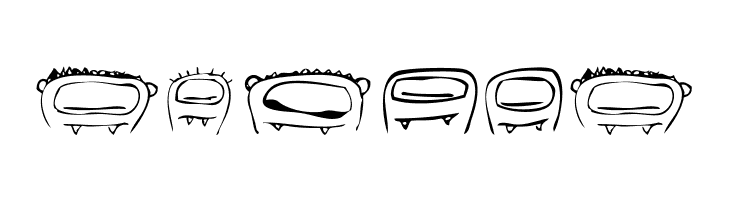
Vera Humana 95 Font
A modern, elegant font with balanced proportions and subtle stroke contrast.
Vera Humana 95 Bold Font
A bold serif font with strong strokes and pronounced serifs.
1543HumaneJenson Normal Font
A classic serif font with a Renaissance-inspired, hand-crafted look.
yorkville Font
Font by humanabase
A modern, geometric sans-serif font with uniform strokes and clear legibility.
1543HumaneJenson Bold Font
A bold, vintage serif font with a textured, historical appearance.
Humans Font
Font by Manfred Klein. Free for private and charity use. Free for commercial with donation to organizations
A display font made from human silhouette illustrations.
Humectez La Mouture Font
Font by junkohanhero
A bold, distressed font with a vintage, textured appearance.
aKa Font
A hand-drawn, artistic font with a playful, sketch-like quality.
Sohoma Light Condensed Font
A light, condensed font with medium contrast and elegant proportions.
Human building Font
A display font using global landmark silhouettes as letterforms.
HumblleRoughtAllCaps Font
Dirtyline Studio - Hendra Maulia - creativemarket.com/h_m
A bold, hand-drawn font with a rough, textured appearance.
Coelacanth Display Font
A classic serif font with high contrast and elegant, sharp serifs.
Humanely Font
A bold, flowing script font with elegant and playful characteristics.
Street Humouresque Font
Font by Graham Meade - GemFonts
A playful and whimsical font with rounded, slightly irregular letterforms.
HUMBLE Font
Font by Adhitya Nugroho
A playful handwritten font with smooth curves and a casual style.
Post Human Font
Font by Press Gang Studios - Andeh Pinkard - www.pressgang-studios.com
A bold, playful handwritten font with a dynamic and informal style.
Humana Font
Font by Manuel Ramos - www.infinitismo.com - Personal-use only. For commercial use please contact owner.
A dynamic, cursive script font with bold, sweeping strokes and elegant curves.